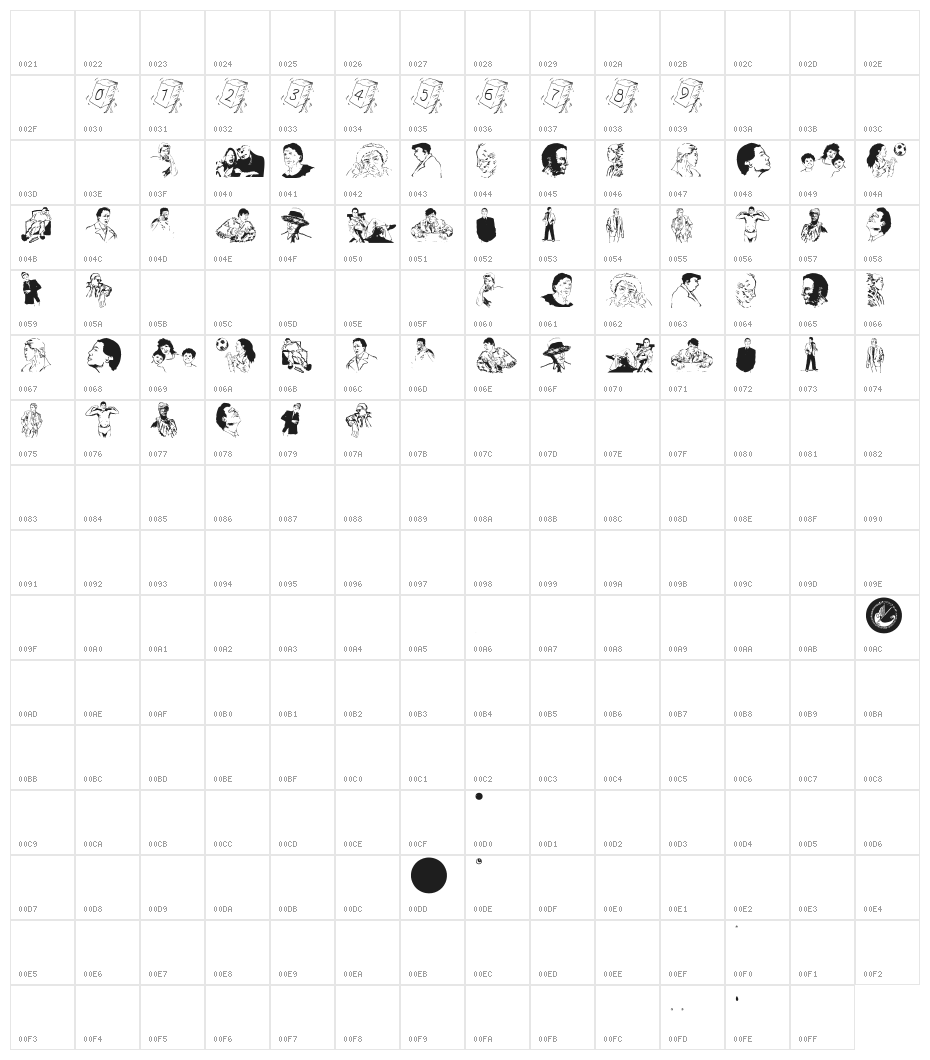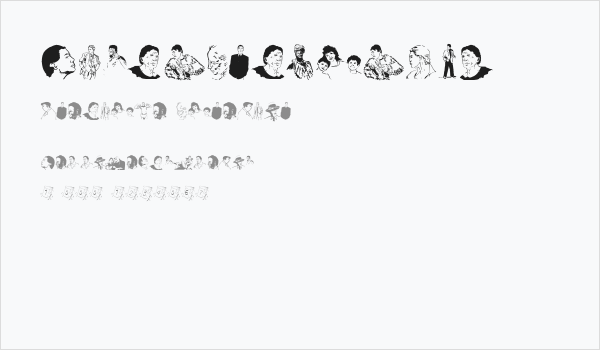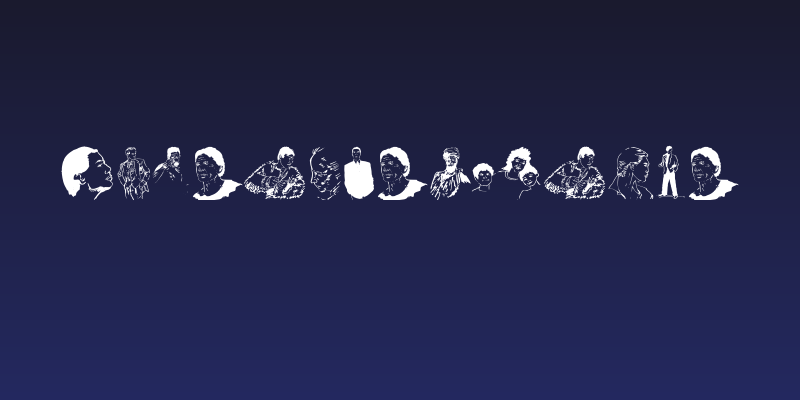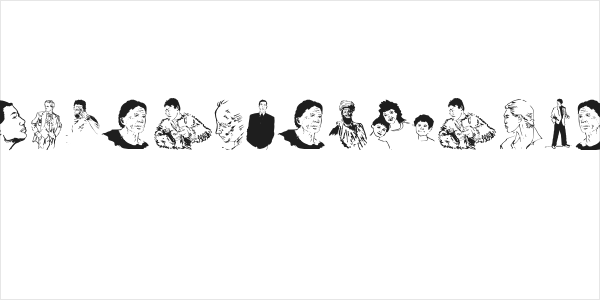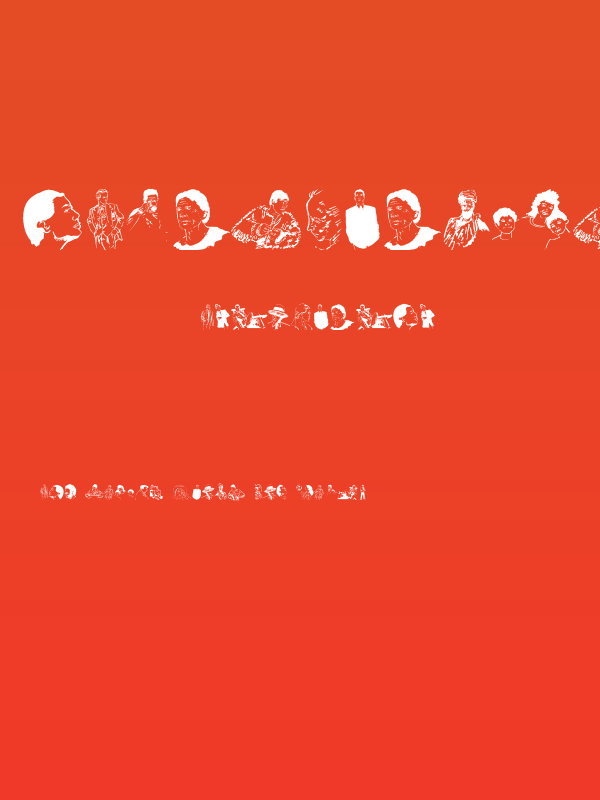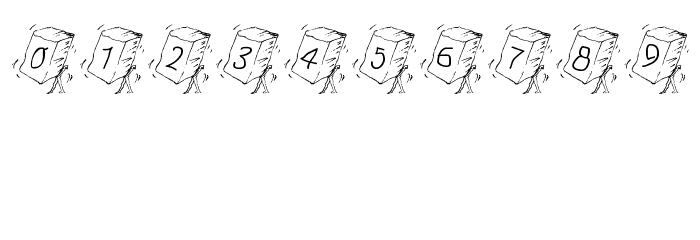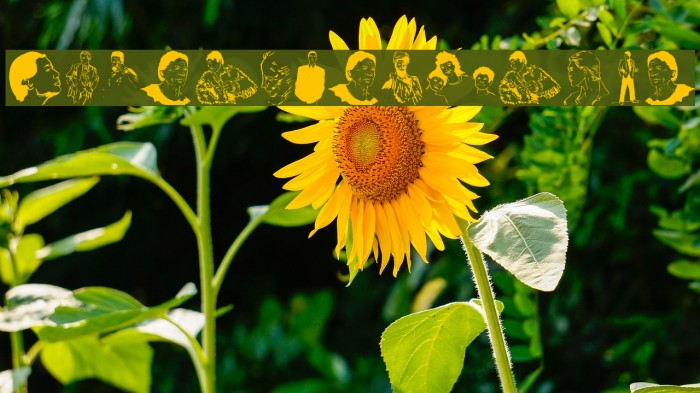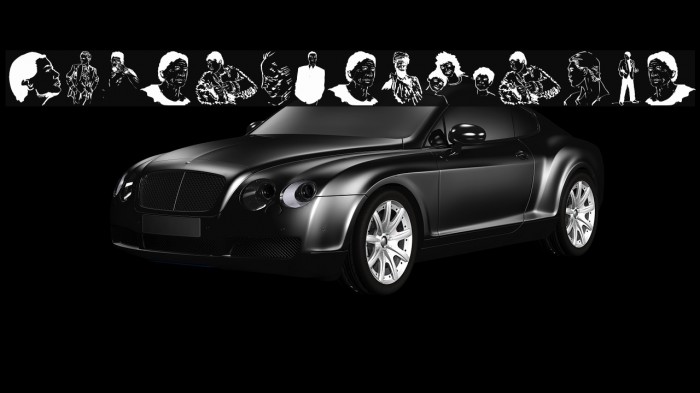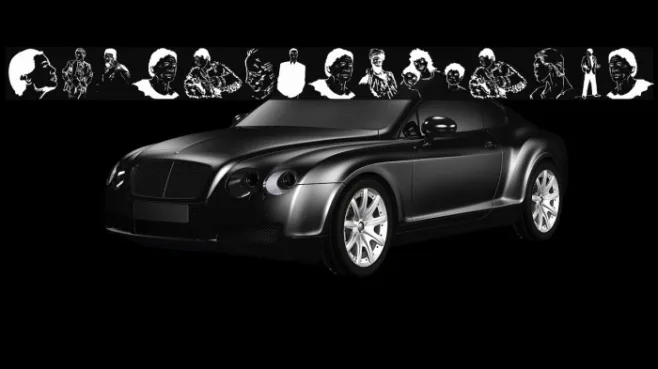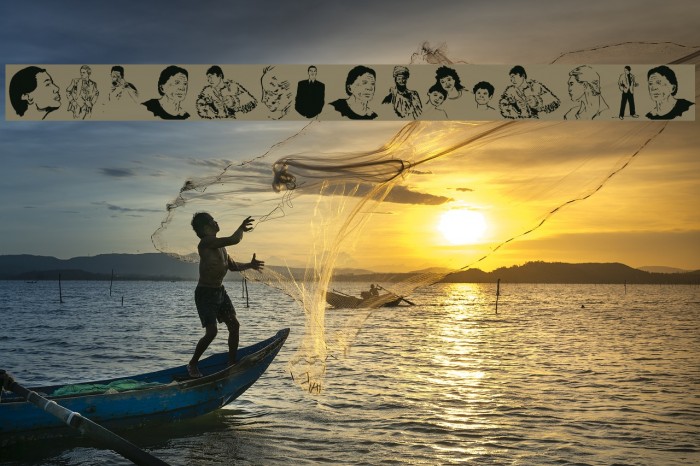
HumanDrawingsA Font
HumanDrawingsA Description
A highly decorative and illustrative font composed of hand-drawn human figures and scenes, with each character represented by a unique sketch or vignette. The numbers are depicted on three-dimensional blocks, while punctuation marks are not clearly visible. The style is expressive and artistic, prioritizing visual storytelling over legibility.
| Overall Style | Decorative, Artistic, Illustrative |
| Use Case | Display, Posters, Art projects, Editorial |
| Proposed Projects | Posters, album covers, editorial illustrations, art projects, creative branding. |